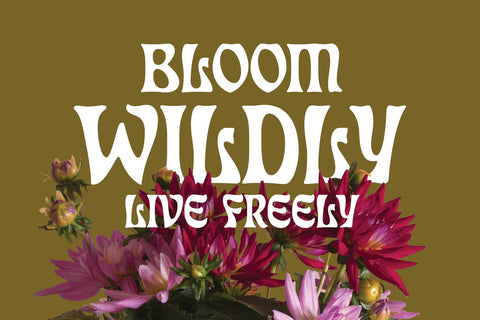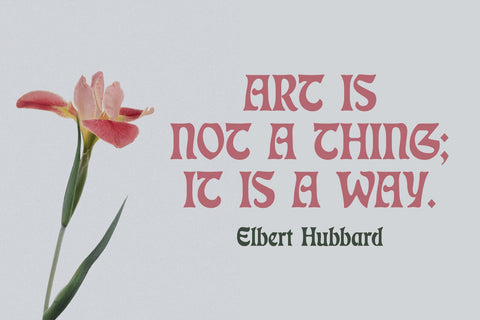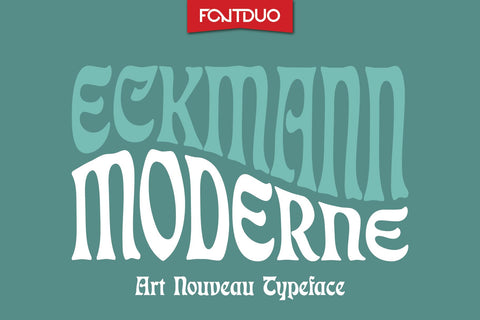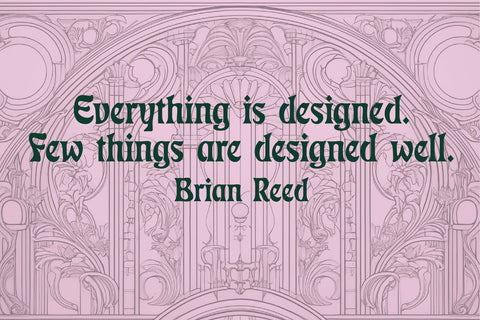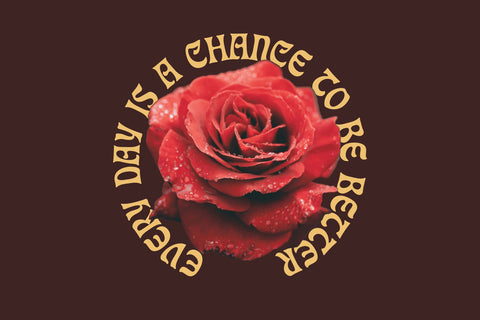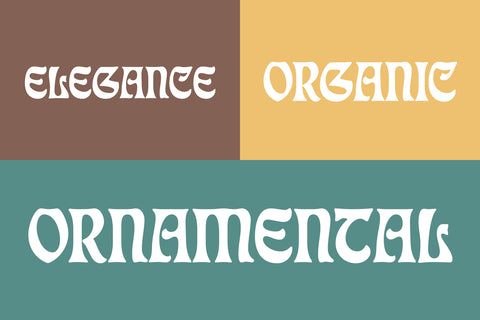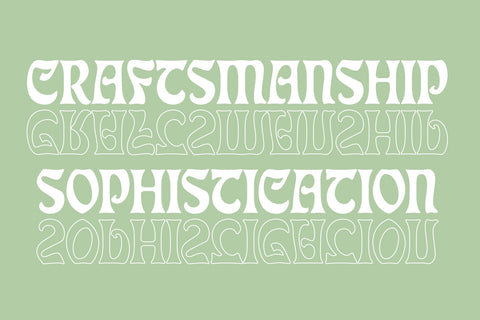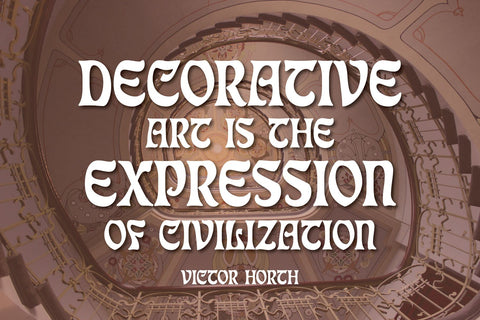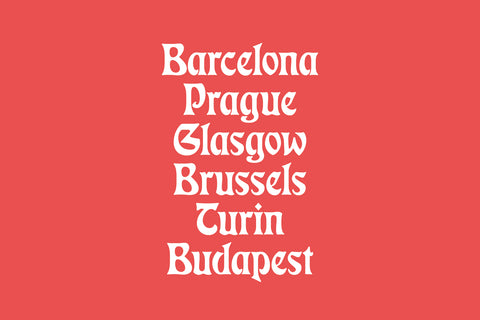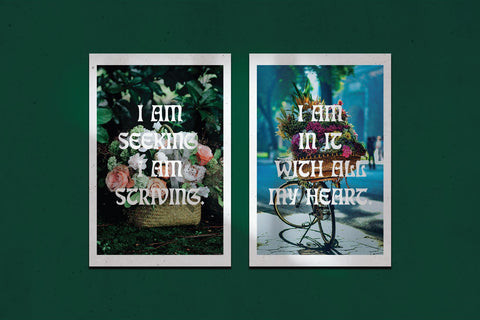
Eckmann Moderne Elegant Art Nouveau Font
Eckmann Moderne FD, an elegant Art Nouveau font, is a meticulous type revival of the iconic Eckmann-Schrift typeface, originally designed by Otto Eckmann in the late 19th century. This modern reinterpretation retains the organic curves, flowing lines, and ornamental charm that defined the original, while introducing refinements for improved legibility and versatility in contemporary design contexts.
With its graceful, sinuous forms, Eckmann Moderne FD breathes new life into the historic Art Nouveau aesthetic, making it suitable for a wide range of creative projects, from digital art and branding to packaging and editorial design. The typeface is particularly well-suited for projects that demand both elegance and readability, ensuring that it can be used seamlessly across print and digital media.